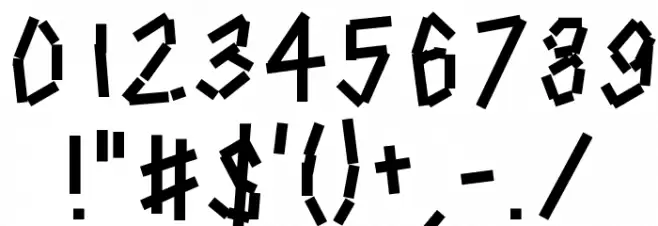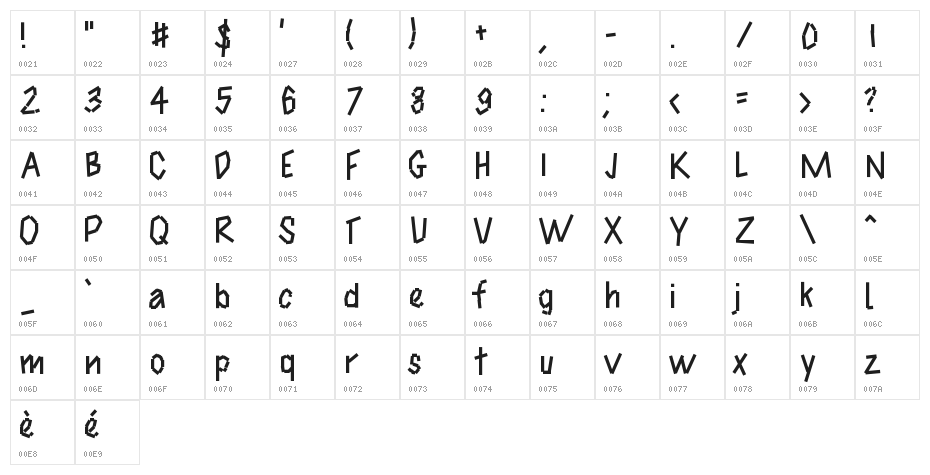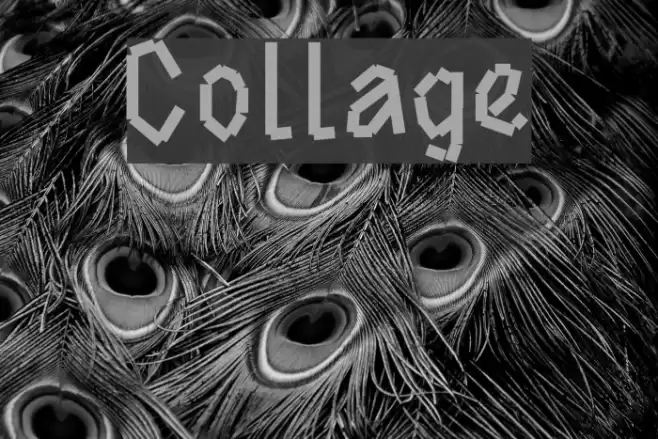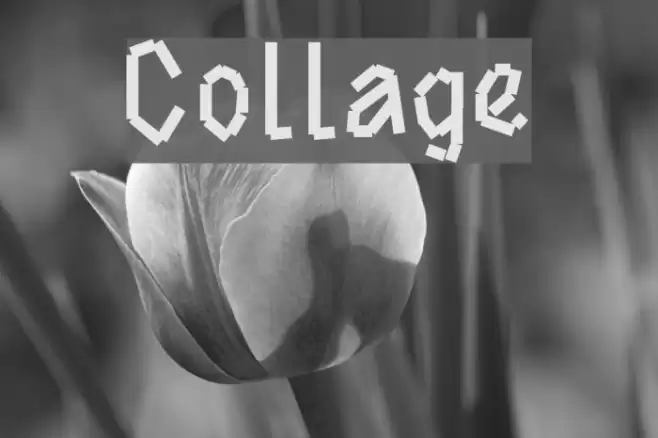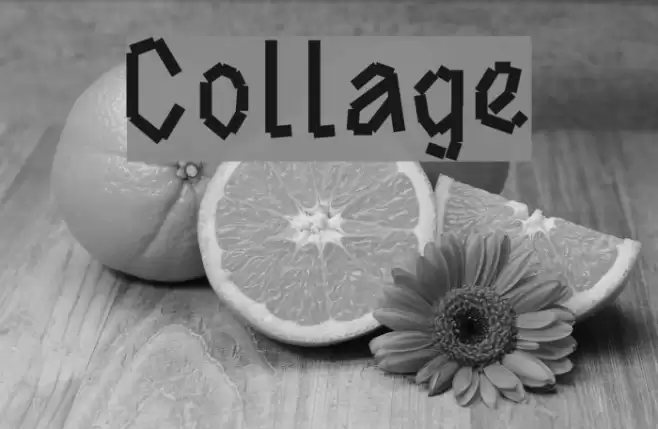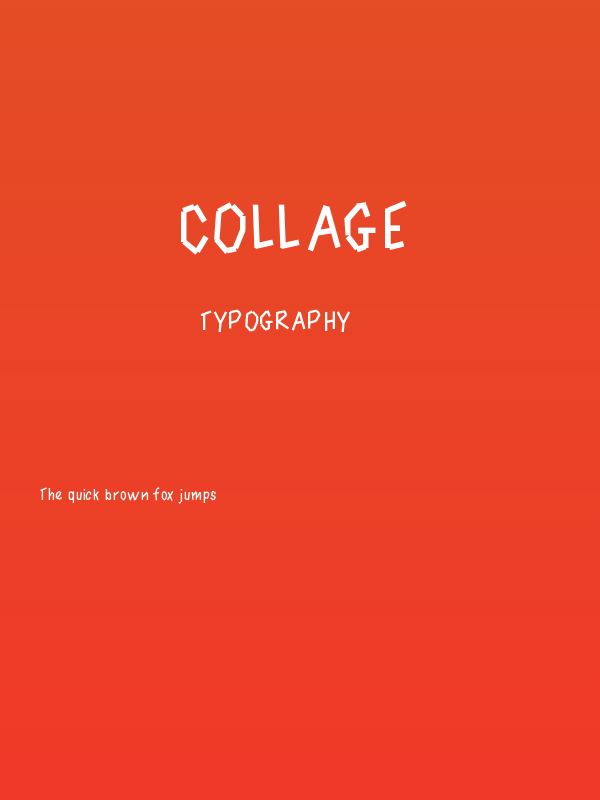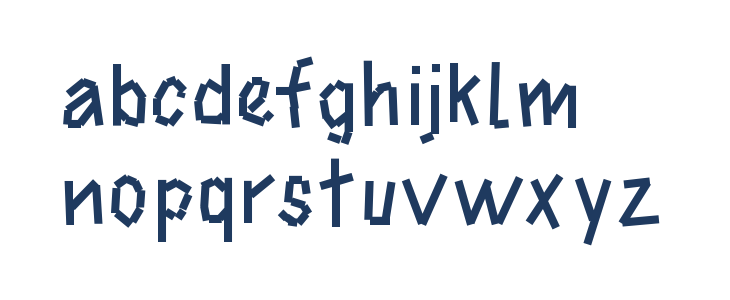
Collage Font
Collage Description
This font features a unique, jagged design that gives it a playful and edgy appearance. The characters are constructed with irregular angles and sharp edges, creating a sense of movement and energy. The uppercase and lowercase letters maintain a consistent style, with each character exhibiting a distinct, hand-drawn quality. The numbers and special characters follow the same design principles, ensuring a cohesive look across all elements. This font's unconventional style makes it stand out, offering a bold statement in any design project.
| Proposed Projects | Ideal for creative projects such as posters, album covers, or branding for edgy or alternative brands. |